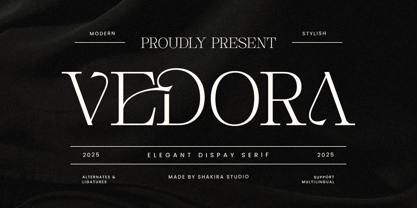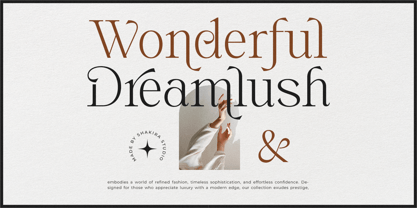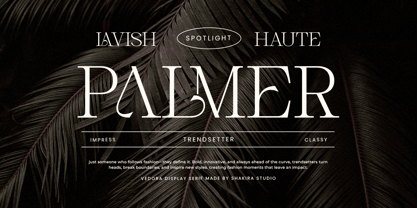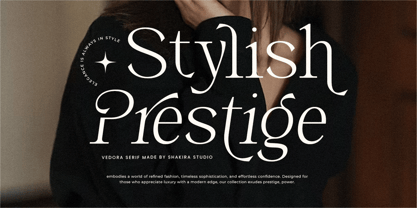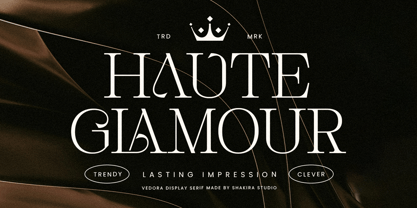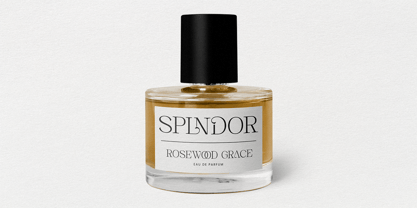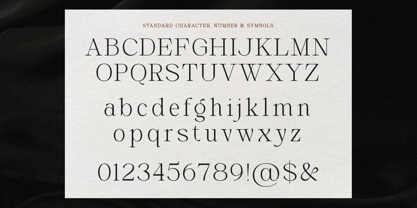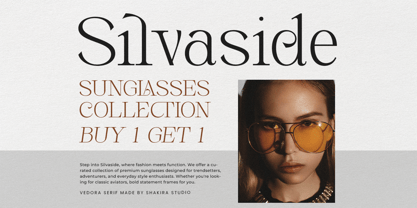
Vedora
by Shakira Studio
The Vedora Font Family was designed by Idhham Cholid Rikzano Yahya and published by Shakira Studio. Vedora contains 2 styles and family package options.
Vedora – Modern Elegant Luxury Serif Font for Timeless Sophistication
Vedora is more than just a font—it’s a masterpiece of modern elegance and luxury serif design. Crafted to elevate your projects with sophistication and style, Vedora combines clean lines, exquisite details, and versatile functionality, making it the perfect choice for high-end branding, editorial design, and luxury packaging. Whether you’re creating a sleek logo or a polished editorial layout, this font ensures your work radiates timeless elegance and contemporary flair.
Where Modern Elegance Meets Timeless Luxury
Vedora stands out with its refined alternates and ligatures, offering endless creative possibilities. Its versatility makes it ideal for projects that demand a touch of luxury and individuality, from corporate branding to editorial masterpieces. This font isn’t just a tool—it’s a statement of modern elegance and design excellence.
Key Features
• Modern Elegant Serif Design – Perfect for high-end branding, editorial projects, and luxury packaging.
• Regular & Italic Versions – Versatile options for a variety of design needs.
• Exquisite Alternates & Ligatures – Add a unique and personalized touch to your designs.
• Multilingual Support – Compatible with over 20 languages, including English, French, German, Spanish, and more.
Elevate Your Designs with Vedora Vedora isn’t just a font—it’s a tool to transform your creative projects into modern luxury masterpieces. Whether you’re crafting a luxury brand identity, designing editorial layouts, or creating standout packaging, Vedora ensures your work stands out with unmatched elegance and sophistication.